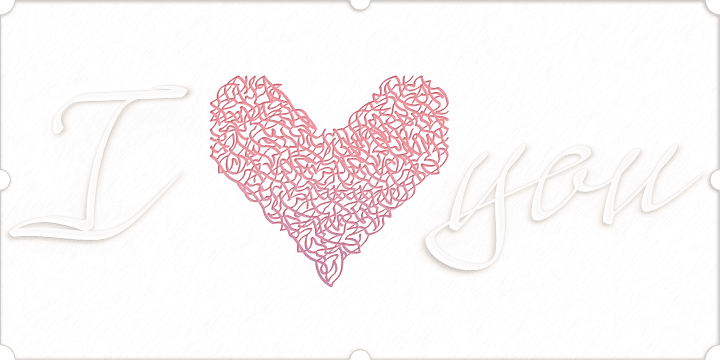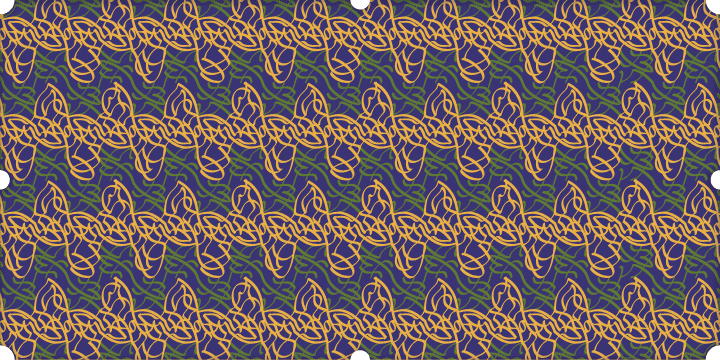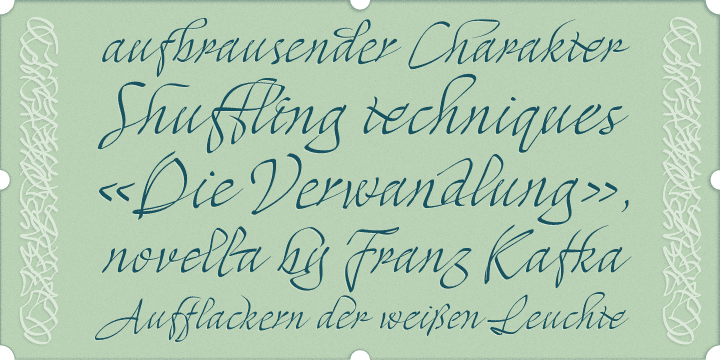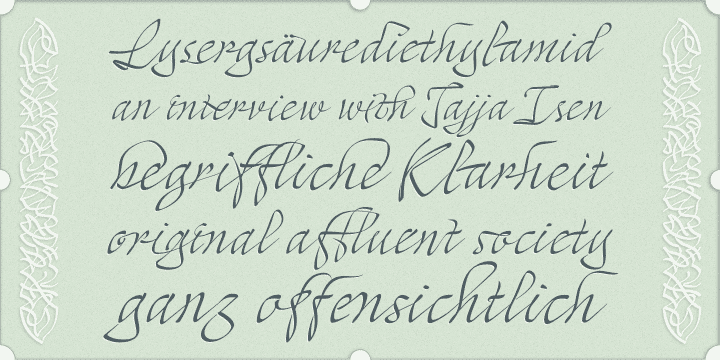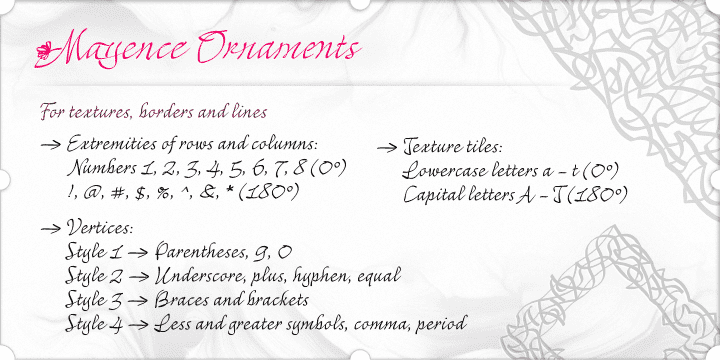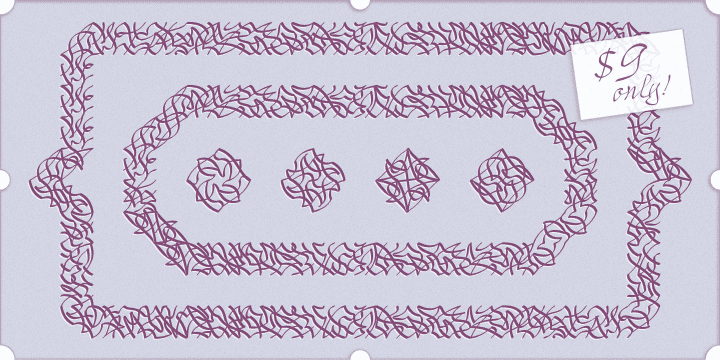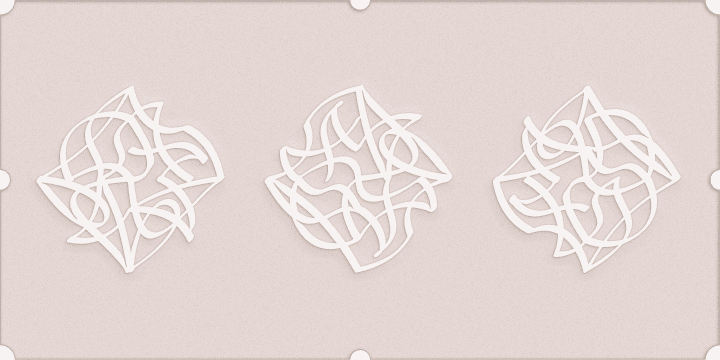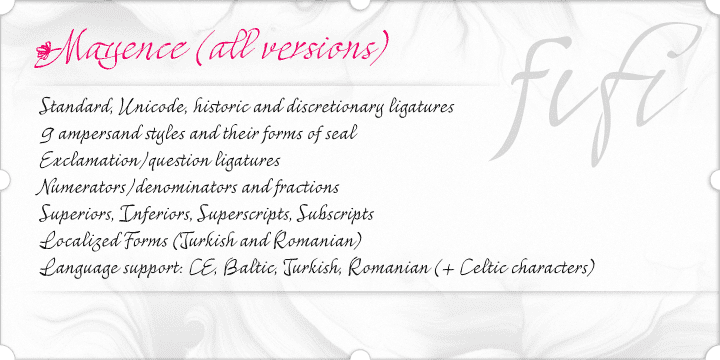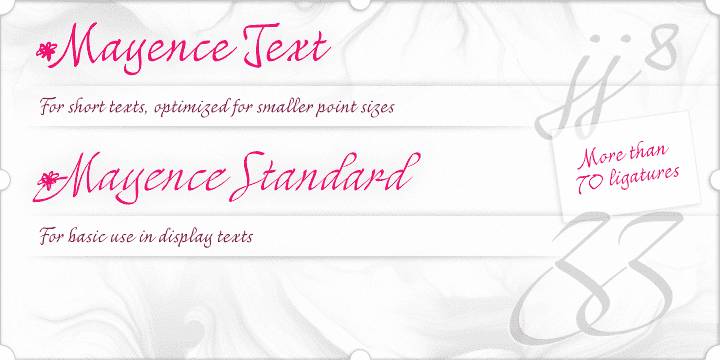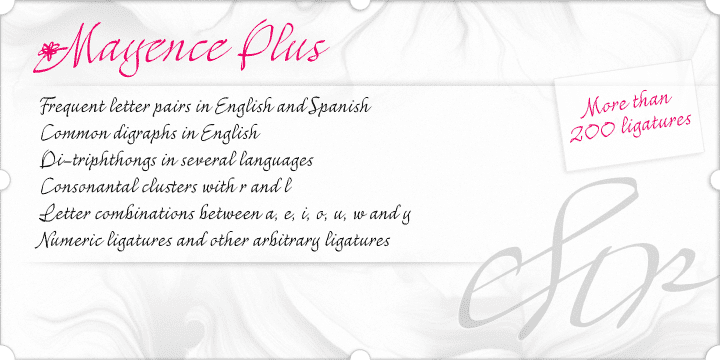
Mayence Family (5 fonts)
Its main difference is the set of over 430 ligatures (Premium version), based on the research and selection of important character sequences, rather frequent in several languages. For this, a study was done about the diphthongs, triphthongs and di-tri-tetra-pentagraphs more common in languages such as English, Spanish, French, German, Italian, Portuguese, Dutch, Hungarian, Croatian, among others. Ligatures with up to 2 characters are enabled by default and with more than 2 characters are enabled by the Discretionary Ligatures option.
Mayence also contains several ligatures based on common words in English and Spanish, exclusive ligatures with numbers and another standard, discretionary, historic and Unicode ligatures. It has 9 different ampersands (&), which can be chosen by the user according to the application context. When you enable the Titling Alternates (in OpenType-savvy programs), these 9 ampersand styles are converted to their forms of seal, with different purposes of use.
To enrich your graphic applications, Mayence brings the Ornaments Version, for construction of impressive lines, borders, textures and the geometric shapes that you want, according to your creativity!